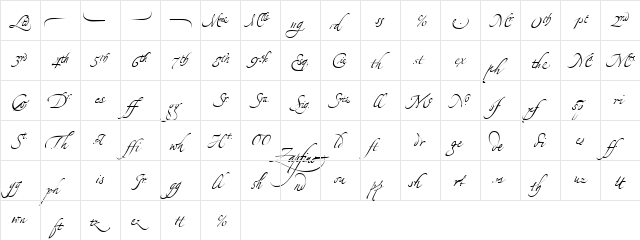
Zapfino Extra LT Ligatures Regular
| Foundry | Linotype Library GmbH |
| Designer | Hermann Zapf |
Design Context for Zapfino Extra LT Ligatures Typeface
Zapfino Extra LT Ligatures is a composed and adaptable typeface that performs quietly and consistently across a wide range of design contexts. Its slender proportions lend an understated elegance to any composition.